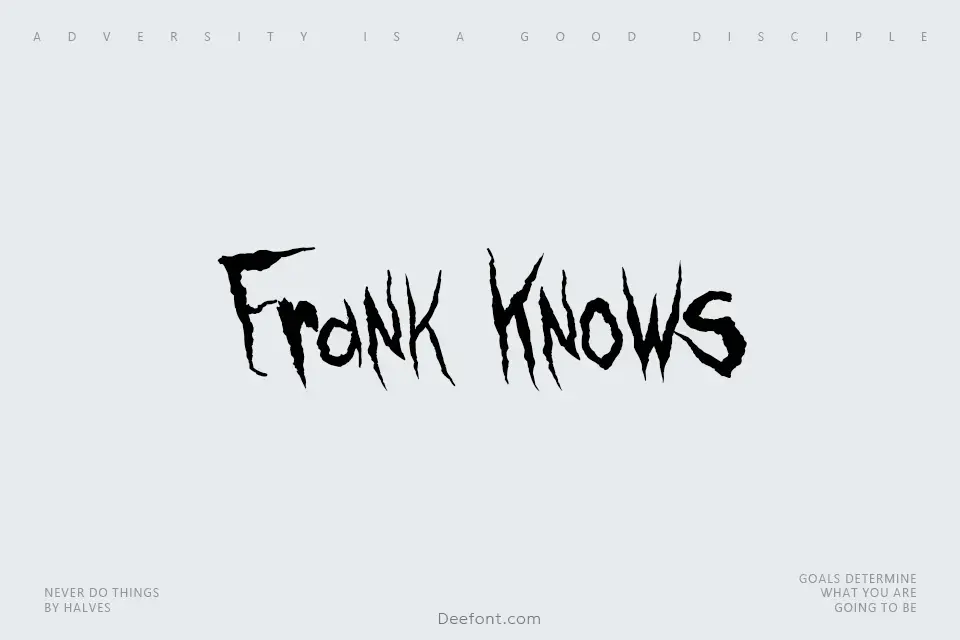
Frank Knows Font
Frank Knows Font is a distinctive script typeface featuring jagged, pointed letterforms with trembling characteristics and an eroded, distressed appearance. The font delivers sharp angular strokes and rough edges that evoke a creepy, horror-inspired aesthetic, making it ideal for halloween designs, scary movie titles, display posters, and edgy branding applications seeking an unsettling visual impact.